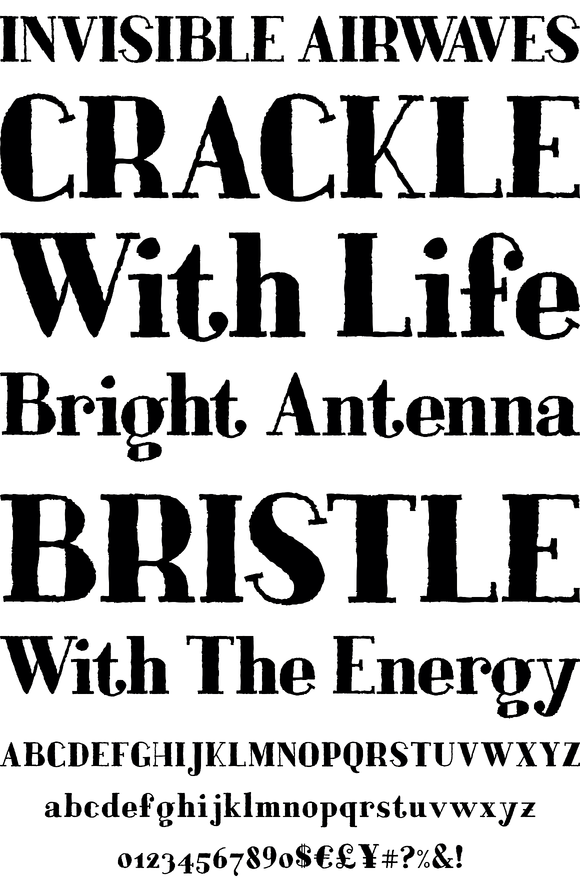
Bodoniez
Foundry: Juanjo Lopez
Bodoniez is a hand-drawn serif spectacular; a tad rough around the edges but still there in tux and tails. This font takes takes special care to ensure that the champagne is kept cold, and the chinchilla fur is dry cleaned, but isn't afraid to box the bouncer. Bodoniez is there when the debutantes need balling, and ready to take the yoke when Peter Graves had the fish for dinner. Bully, old sport. Bully.